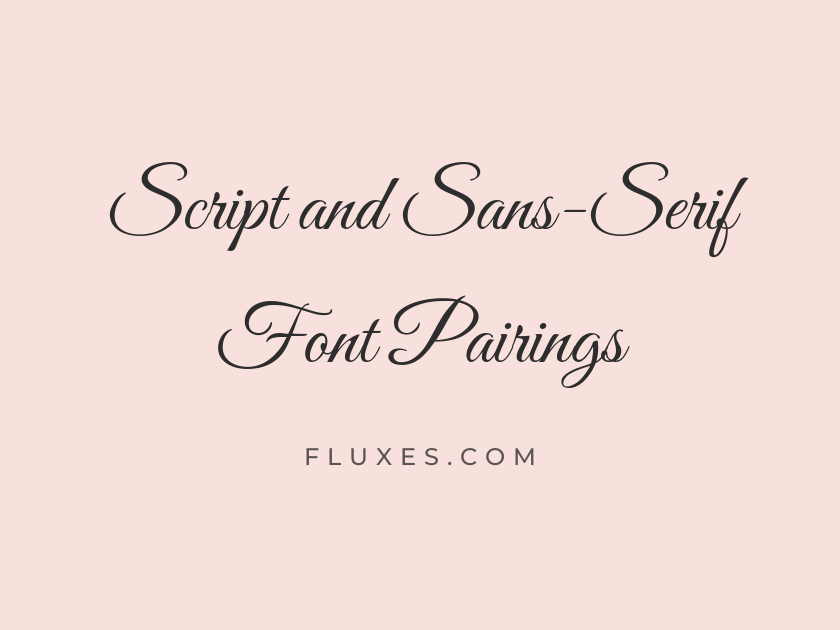
11 Best Script and Sans-Serif Font Pairings
Script and sans-serif combinations work because they place two opposite temperaments side by side: one font full of personality and human gesture, the other clean and almost invisible in its restraint. The contrast lets the script carry emotion in a headline while the sans-serif keeps paragraphs legible and modern. These Google Fonts pairings suit invitations, branding, packaging, and any project that wants warmth up top and clarity below.
1. Great Vibes + Montserrat
A clean geometric sans keeps the invitation details easy to read at a glance.
Great Vibes has the flourish of formal calligraphy, so it needs a body partner with zero decoration of its own. Montserrat’s even strokes and generous spacing do exactly that, letting the script stay the star of the composition. This pairing is a reliable choice for wedding stationery and upscale event branding.
2. Sacramento + Work Sans
Work Sans has a friendly warmth that keeps the pairing approachable rather than fussy.
Sacramento is a narrower, more casual script, so it benefits from a sans-serif with similarly compact letterforms rather than something wide and airy. Work Sans matches that density while adding a neutral, contemporary voice for body copy. Together they suit lifestyle blogs, boutique packaging, or social graphics that want charm without formality.
3. Dancing Script + Karla
Karla's slightly quirky details echo the script's informality while staying easy on the eyes.
Both fonts share a relaxed, unpretentious mood, so the pairing feels cohesive rather than like two unrelated typefaces forced together. Dancing Script supplies bounce and personality, and Karla’s subtly rounded terminals keep that same friendliness running through the text. It works well for craft businesses, greeting cards, and playful editorial headers.
4. Pacifico + Nunito Sans
Nunito Sans offers rounded, soft letterforms that echo the script's casual retro energy.
5. Nunito Sans + Alex Brush
A soft, rounded sans keeps the retro mood consistent all the way through the copy.
6. Raleway + Allura
Raleway's thin, refined strokes give the layout a polished, editorial finish.
7. Josefin Sans + Satisfy
Josefin Sans brings a vintage geometric structure that grounds the flowing script above it.
8. Poppins + Kaushan Script
Poppins keeps things geometric and confident, balancing the script's casual brush strokes.
9. Source Sans 3 + Parisienne
Source Sans 3 is workmanlike and clear, letting the brush script do the emotional heavy lifting.
10. Lato + Cookie
Lato's warm, humanist curves keep the page feeling inviting rather than cold.
11. Open Sans + Marck Script
Open Sans is dependable and neutral, a safe home for longer descriptions or instructions.
Tips for pairing script and sans-serif fonts
Match the script’s weight and mood to the sans-serif’s personality: a delicate script wants a light, refined sans, while a bold brush script can handle a sturdier geometric partner.
Keep scripts for short headlines or accents only; they lose readability quickly in long paragraphs, which is exactly where the sans-serif should take over.
Check x-heights and letter spacing at the sizes you will actually use, since scripts that look elegant large can turn illegible when shrunk for mobile screens.